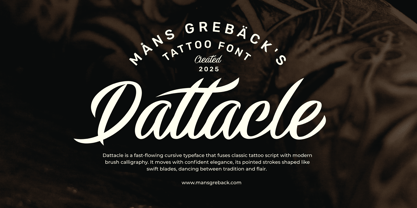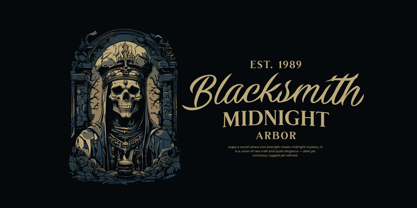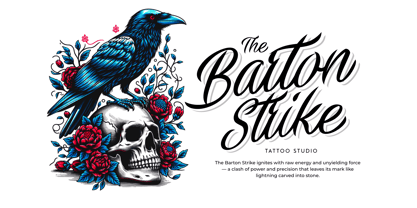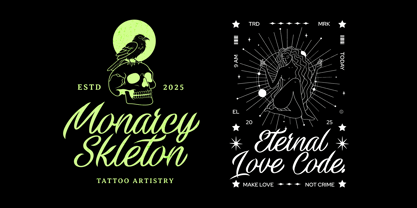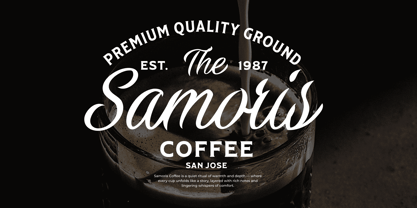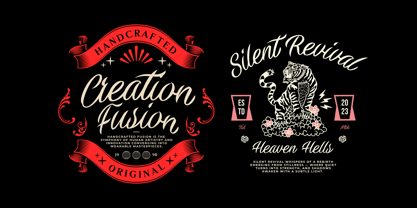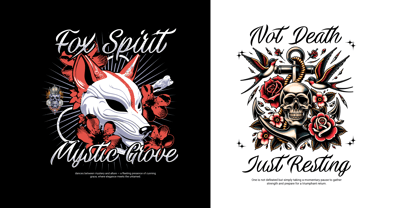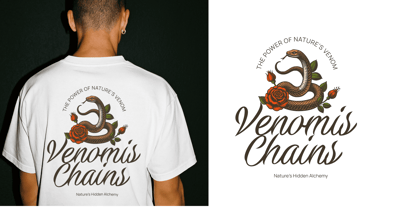
Dattacle
by Mans Greback
The Dattacle Font Family was designed by Måns Grebäck and published by Mans Greback. Dattacle contains 5 styles and family package options. More about this family
Dattacle is a fast-flowing cursive typeface that fuses classic tattoo script with modern brush calligraphy. It moves with confident elegance, its pointed strokes shaped like swift blades, dancing between tradition and flair. The letterforms lean forward with a determined rhythm, while tense curves and sharp edges combine to create a look that's both rebellious and refined. Each character is drawn with motion in mind, as if written mid-air with a loaded brush, creating a visual tempo that's bold yet balanced. The contrasting weights across the family—from Thin to Black—allow expressive layering and impactful hierarchy. The font is built with advanced functionality and guaranteed top-notch quality, containing stylistic and contextual alternates, ligatures and more automatic and manual features; all to give you full control and customizability. It has extensive lingual support, covering all Latin-based languages, from North Europa to South Africa, from America to South-East Asia. It contains all characters and symbols you'll ever need, including all punctuation and numbers. Designed and produced by Mans Greback, a type designer and lettering artist specialized in high-quality calligraphy and script fonts for over a decade.